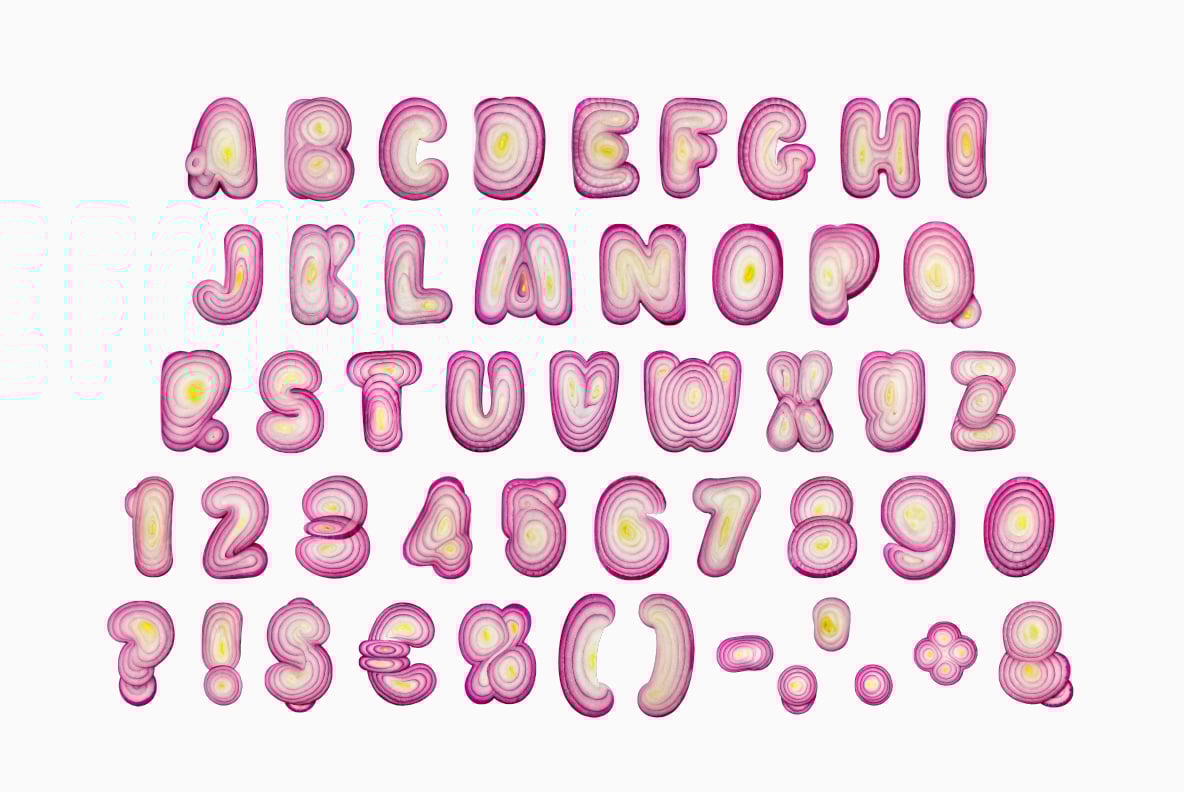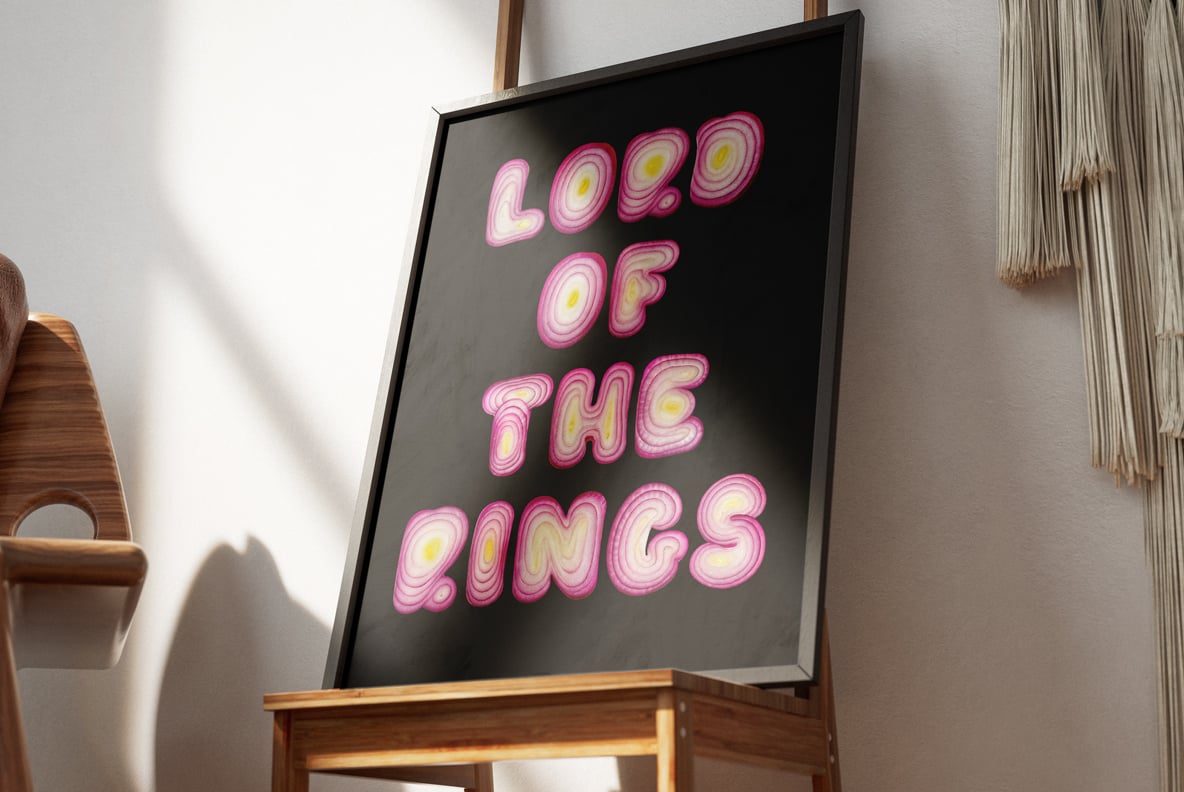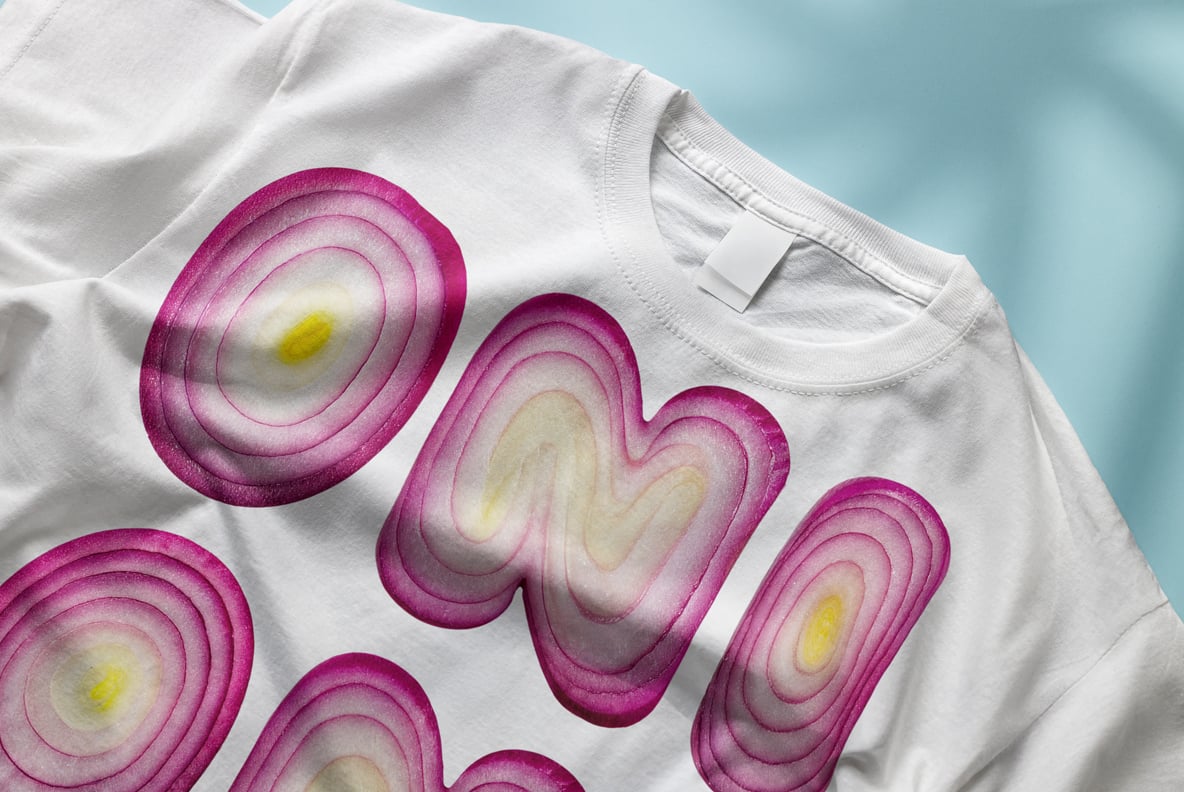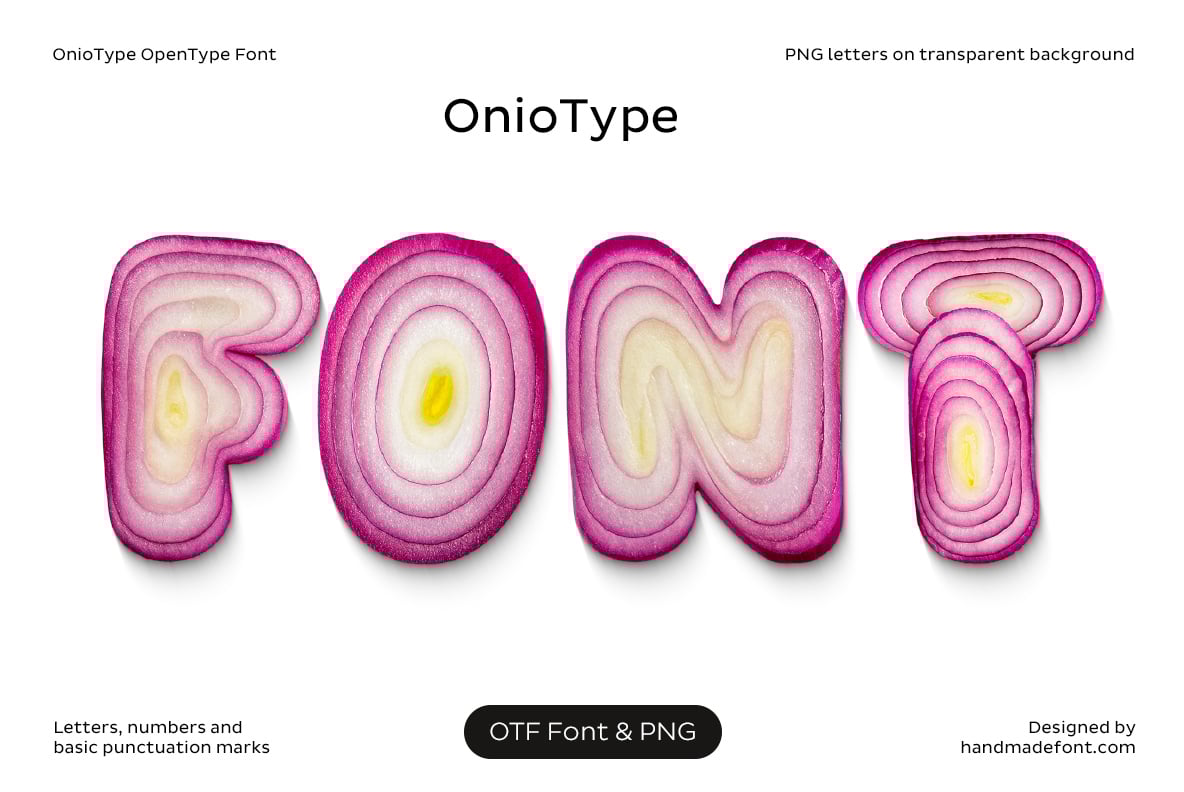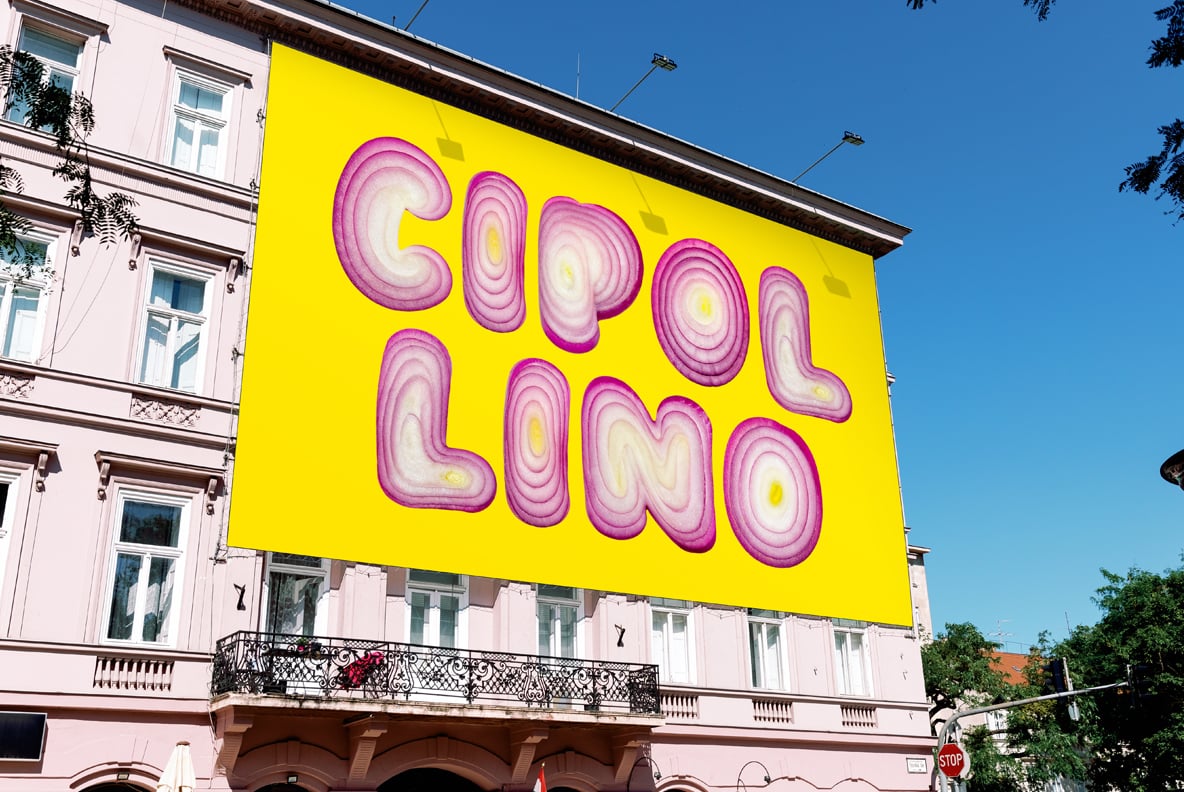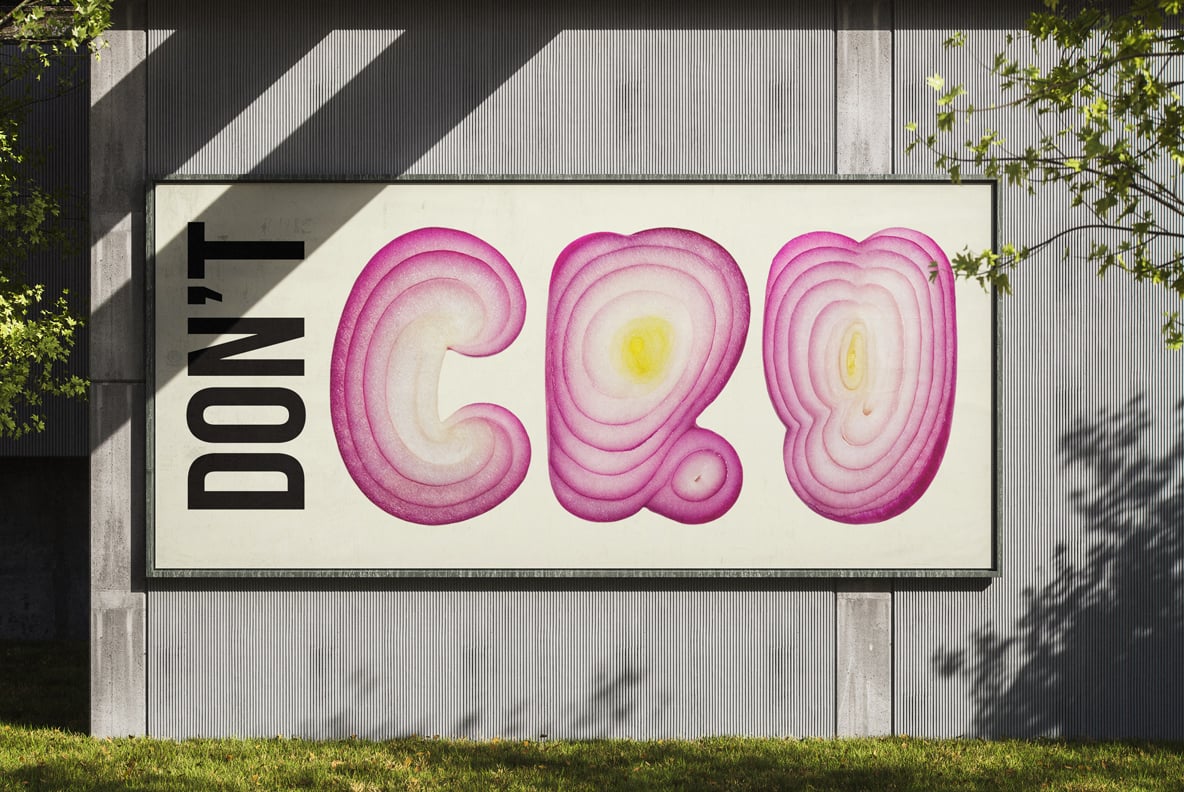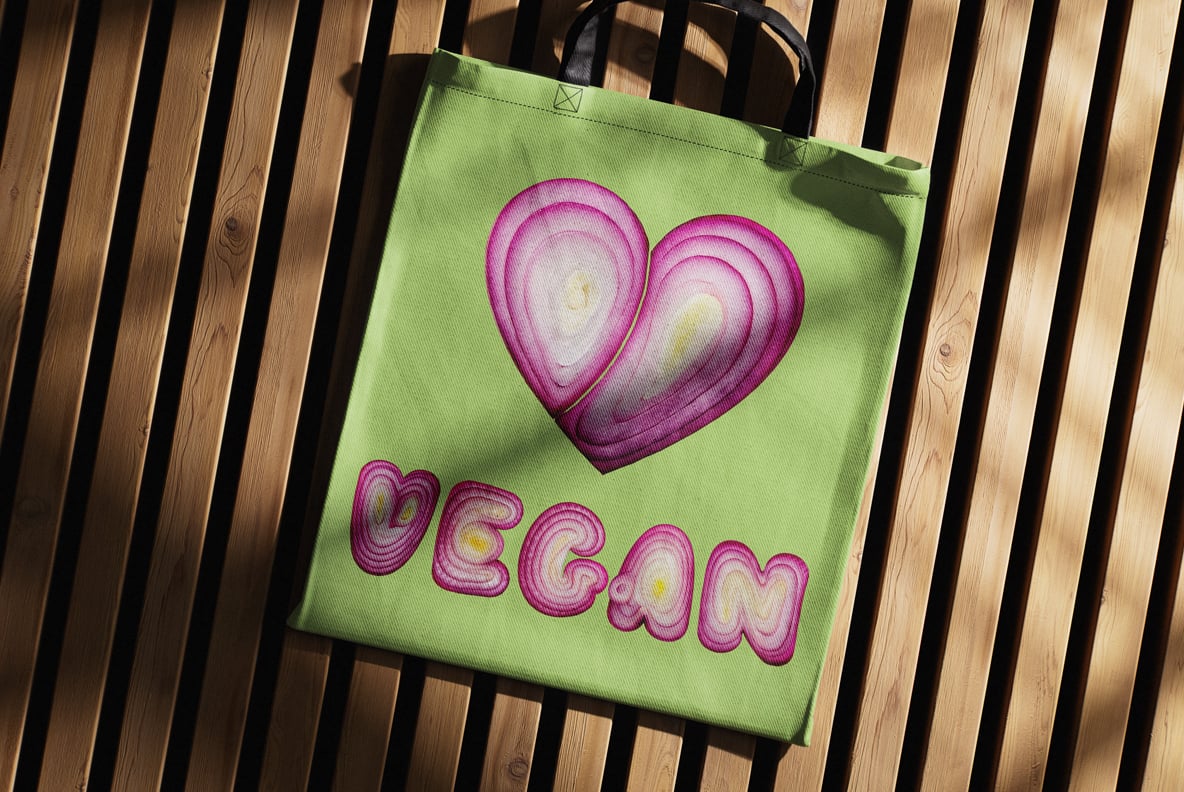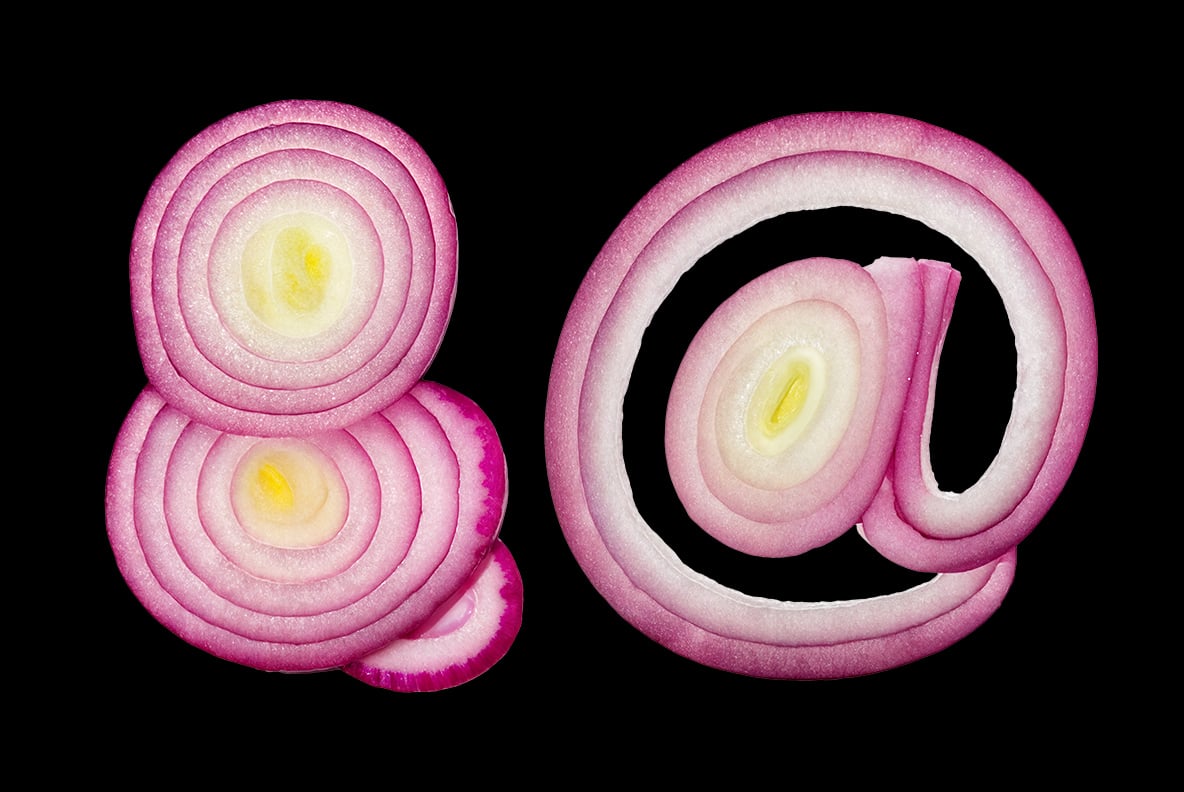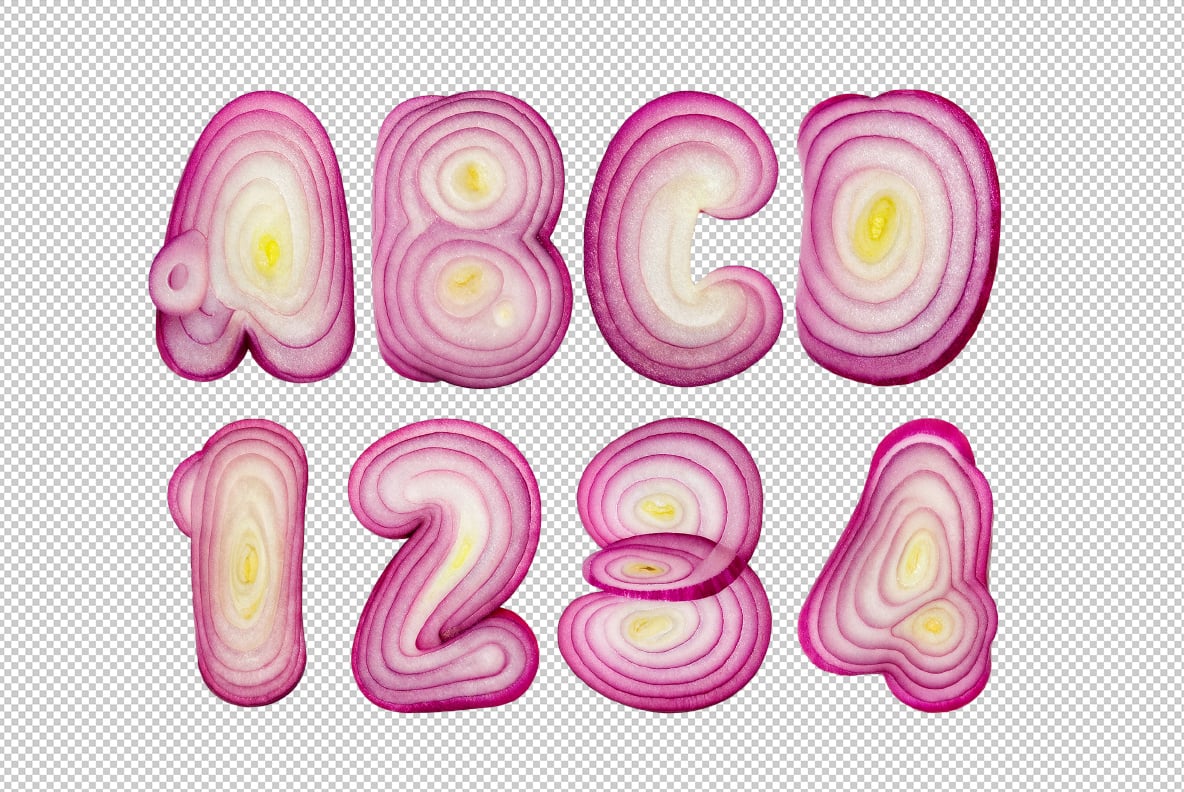
OnioType Font
OnioType Font is a flavorful fusion of typography and food art. Each letter is crafted from a slice of red onion, with natural rings forming bold, organic curves. The vivid purples, whites, and touches of yellow evoke a fresh, playful energy—perfect for culinary branding, eco-design, or experimental visuals. This font is both a visual pun and a celebration of nature’s geometry. OnioType bridges the worlds of edible aesthetics and expressive letterforms, offering a bold yet humorous take on type design. Whether used in food packaging or avant-garde posters, it’s sure to add a tasty twist to your typographic palette.
A high definition OpenType Font. Contains uppercase characters, numerals and basic punctuation. (Draw height roughly 800 pixels). All letters and glyphs that comprises this font you can see on the preview.